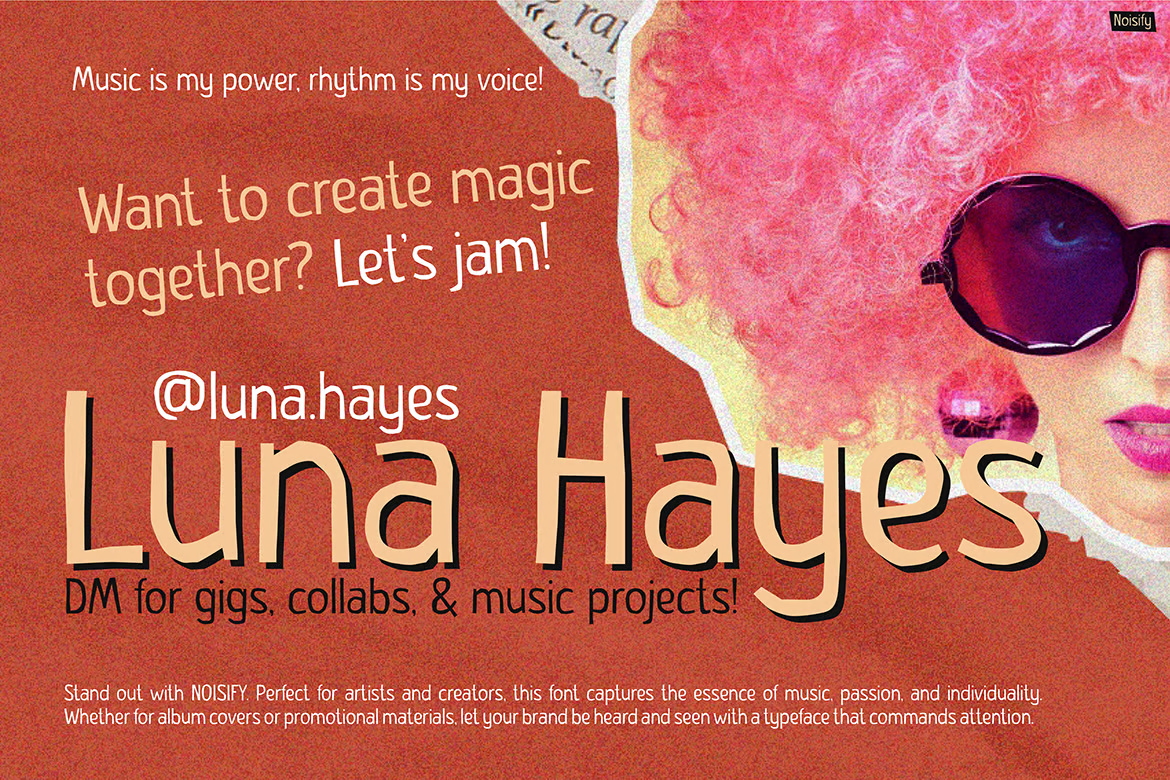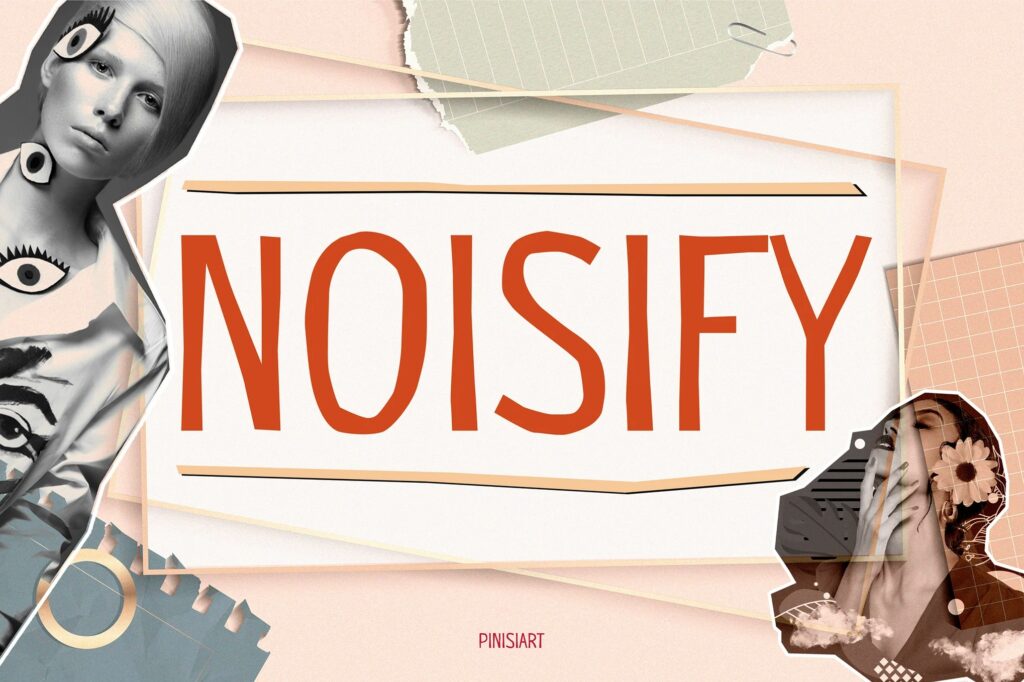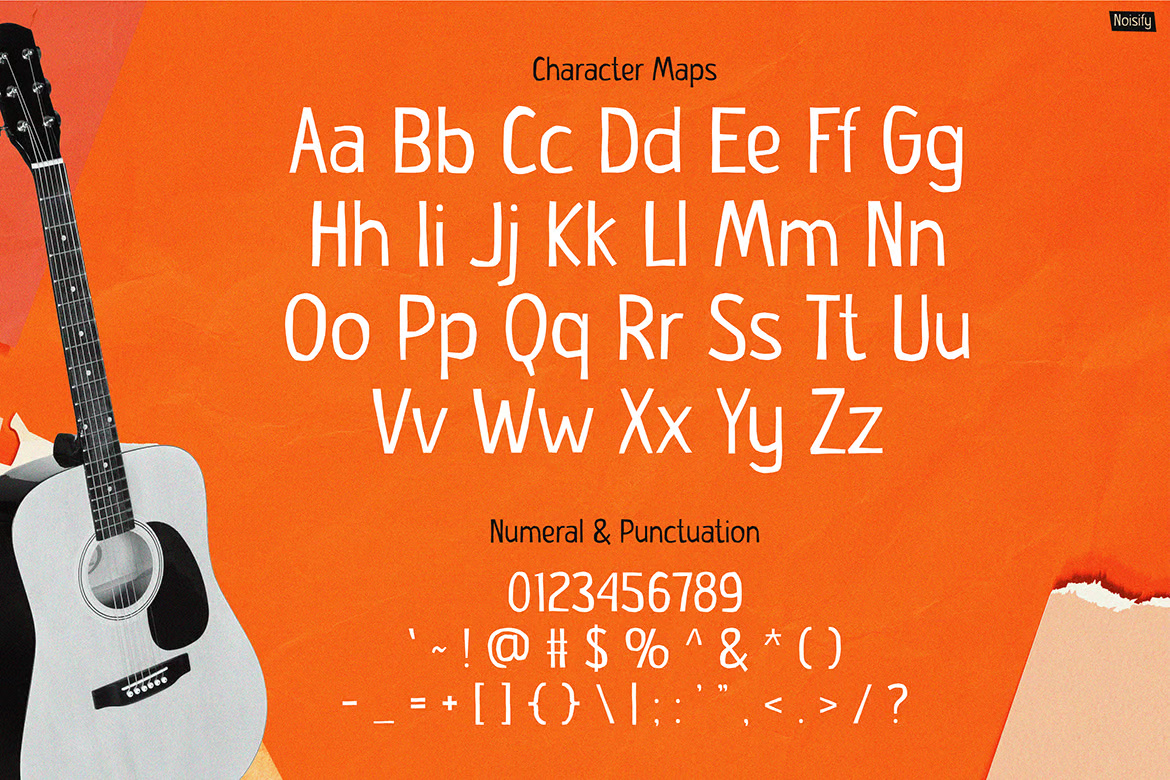
Cutout Font – Noisify
NOISIFY is a bold, energetic cutout-style display font that captures the loudness of live music, the spirit of creative rebellion, and the raw, handcrafted aesthetic of DIY culture. With its uneven forms, quirky angles, and spontaneous feel, NOISIFY injects raw life into every headline and brand moment.
This font thrives in concert posters, album covers, music festivals, retro nightlife ads, youth campaigns, and fashion-forward street marketing. It brings a sense of motion and personality, making it perfect for designs that need to shout, sing, or vibe with amplified energy.
Its slightly rough edge and casual irregularity make NOISIFY an immediate choice for brands that want to look authentic, funky, and unapologetically human.
Cutout Sans-Serif Font – Noisify